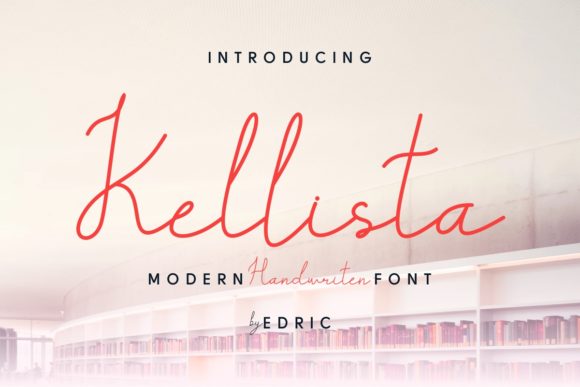
Kellista Font
Prepare yourself for a typographic masterpiece that will ignite your imagination and transform your designs into works of art. Kellista, a captivating monoline script, is here to elevate your creative endeavors to unprecedented heights.
Kellista is more than just a font; it's an invitation to embark on a journey of visual exploration. Its delicate strokes dance across the page with an effortless grace, connecting with your audience on an emotional level. Whether you're a seasoned designer or a typography enthusiast, Kellista will captivate your senses and inspire you to create designs that resonate.
Imagine the possibilities as you weave your words into enchanting invitations, verleihen your branding a touch of whimsical charm, or craft social media posts that shimmer with originality. Kellista's versatility knows no bounds, adapting seamlessly to a myriad of design styles. From elegant wedding stationery to eye-catching logos and playful social media graphics, Kellista will elevate your creations with its timeless appeal.
With Kellista at your fingertips, you'll have the power to transform ordinary designs into extraordinary expressions of creativity. Its monoline strokes lend a touch of sophistication, while its playful spirit adds a captivating energy that will leave your audience mesmerized. Prepare to unleash your imagination and embark on a typographic journey unlike any other.